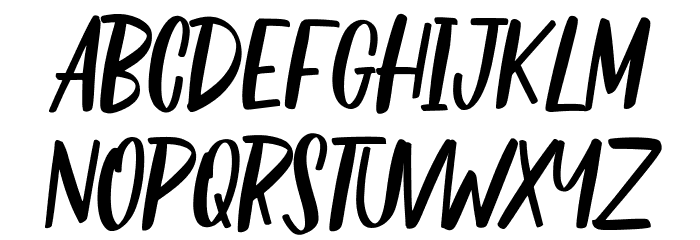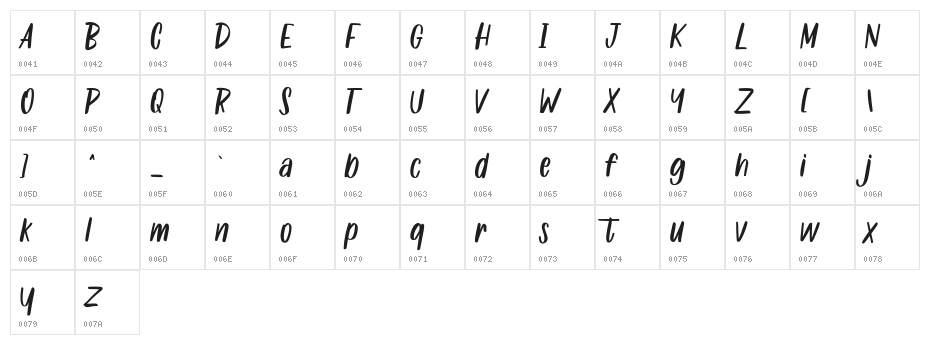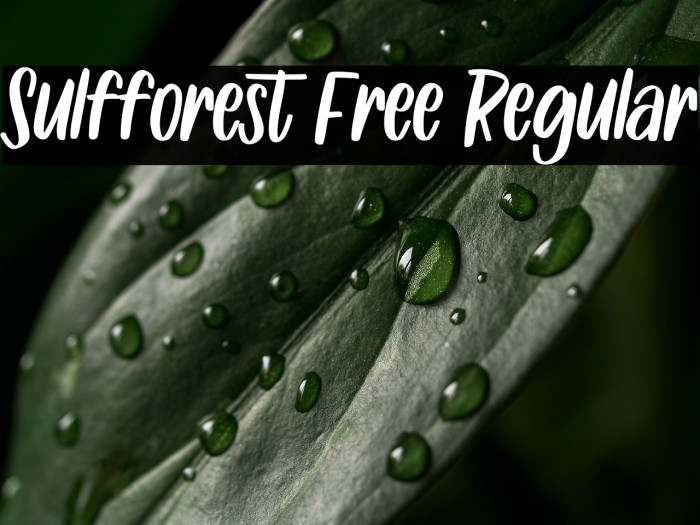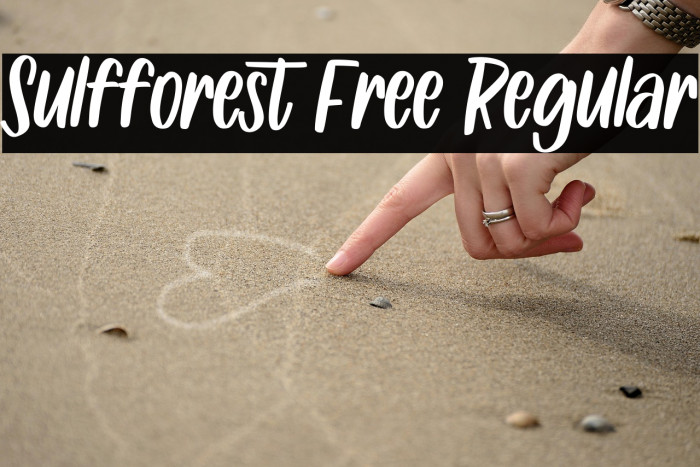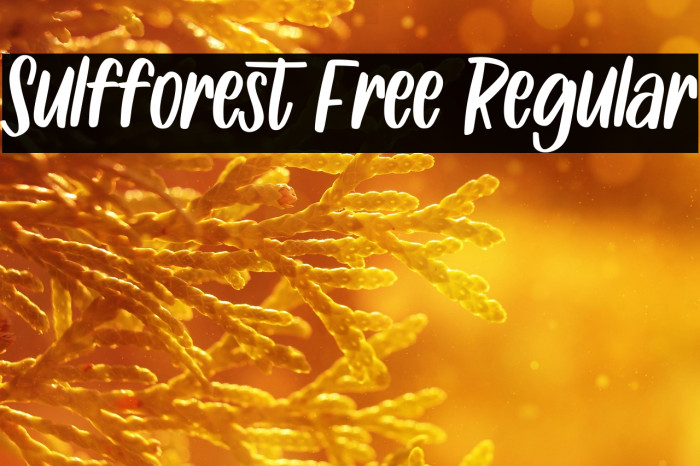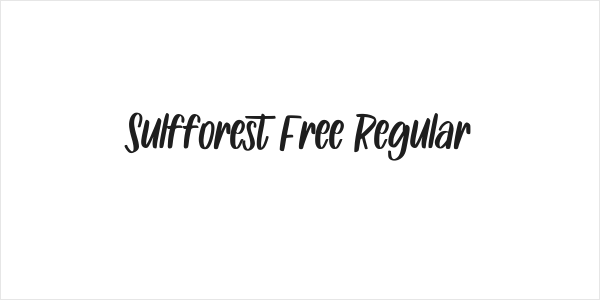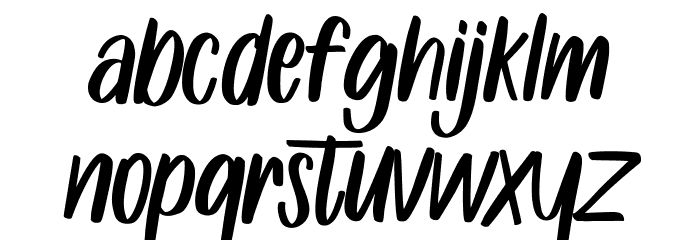
Sulfforest Free Regular Font
Sulfforest Free Regular Description
This font features a bold and energetic script style with a modern flair. The letters are slightly slanted, giving a sense of movement and dynamism. The strokes are thick and consistent, providing a strong visual impact. The uppercase and lowercase letters are well-balanced, maintaining readability while adding a touch of personality. The font's playful yet structured appearance makes it suitable for a variety of creative projects. Its unique character is emphasized by the smooth curves and sharp edges, creating a harmonious blend of elegance and boldness.